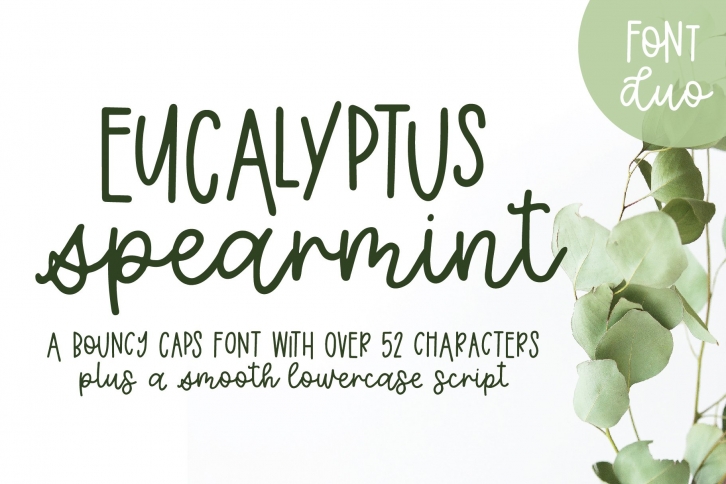
Introducing Eucalyptus Spearmint, a smooth hand lettered monoline font. Eucalyptus Spearmint comes with a versatile bouncy caps font with each letter containing two characters!
Eucalyptus Spearmint Font Features:
- 2 sets of uppercase letters
- Full set of lowercase letters
- 4 Standard Ligatures
- 5 Discretionary Ligatures
- 15 Beginning & End Forms
- 10 Stylistic Alternates (not including the above)
- Multilingual support for: Albanian, Asu, Basque, Bemba, Bena, Chiga, Cornish, Danish, Dutch, English, Faroese, Filipino, French, German, Icelandic, Indonesian, Irish, Italian, Latin, Portuguese, Spanish, Swahili, Swedish, and many more!